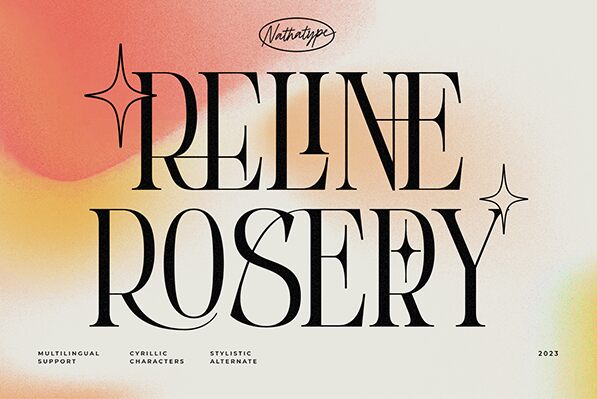
Reline Rosery
Reline Rosery font by Nathatype is a free serif font that features classic elegance and sophisticated curves. With vintage charm and refined proportions, this condensed font has an engaging appearance made timeless with its subtle flair and approachable nature.
This typeface works best for use in branding, poster design, business cards, logo design, invitations, greeting cards, signage design, magazine title display typography as well as website header fonts.